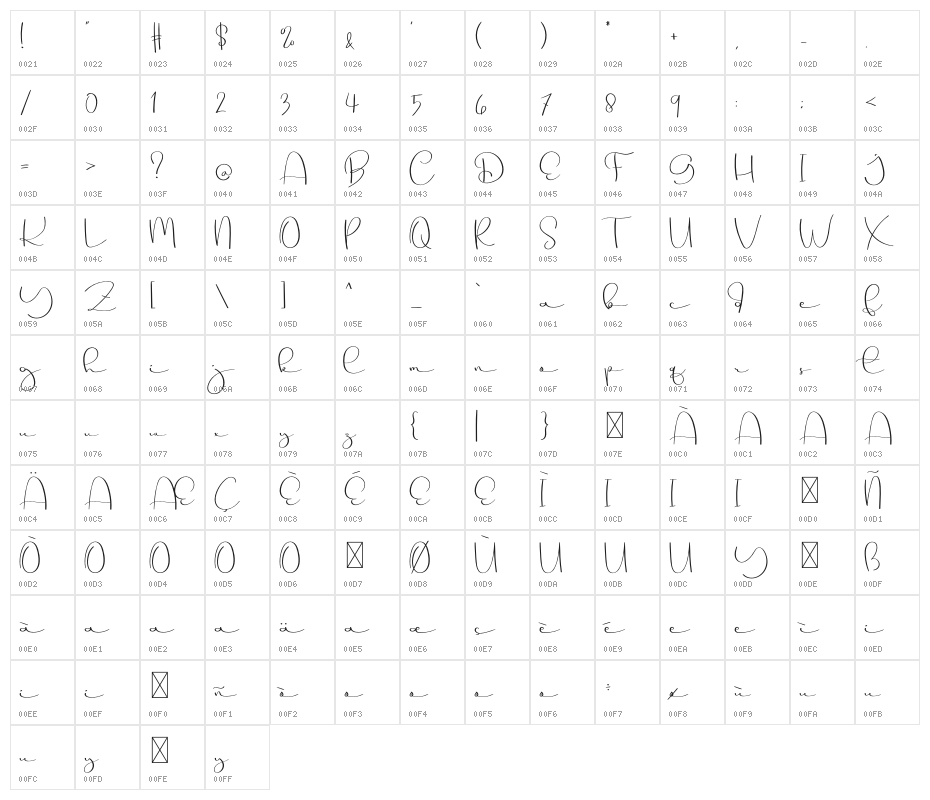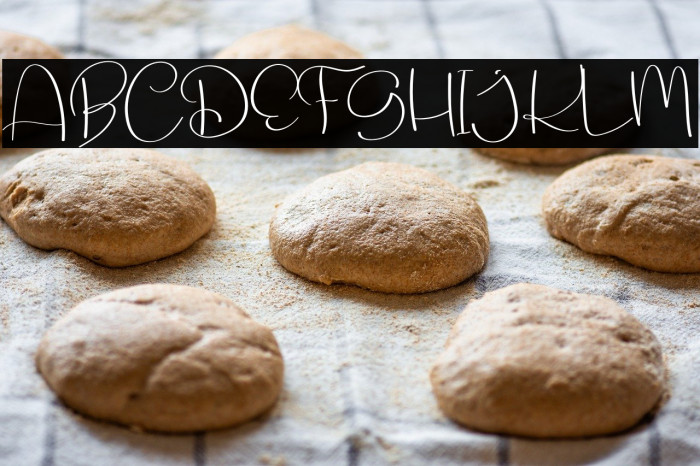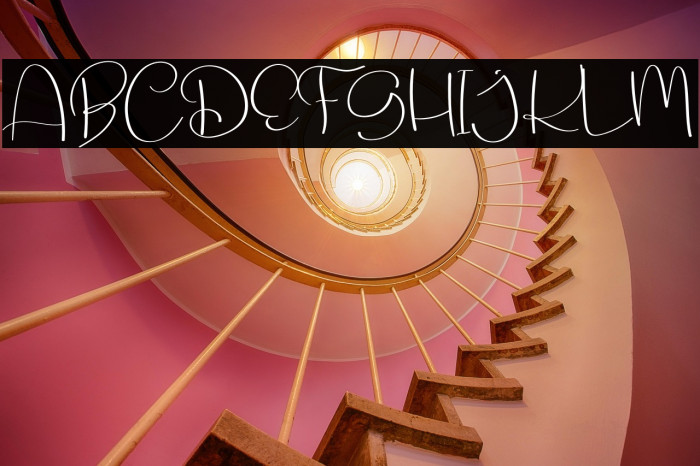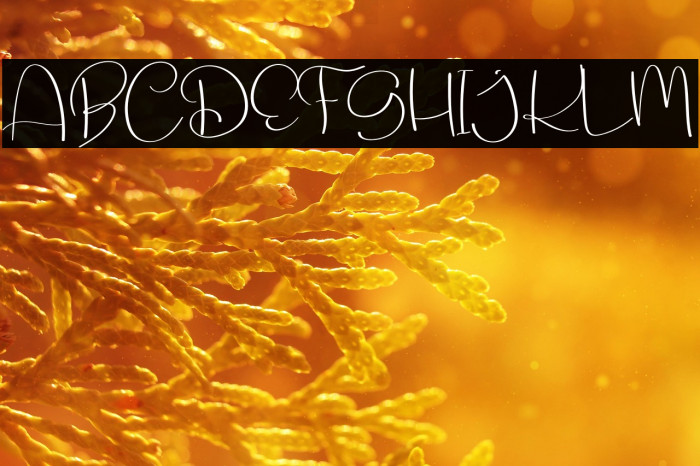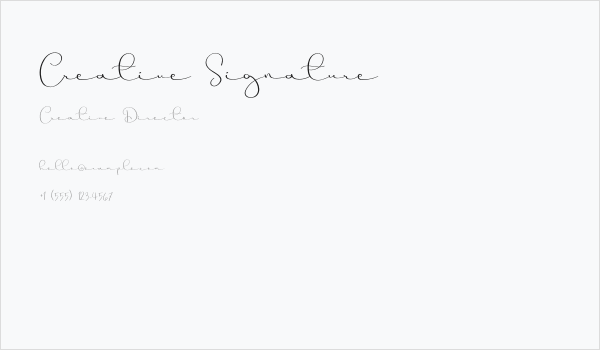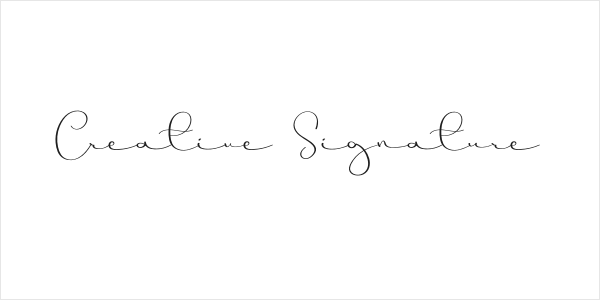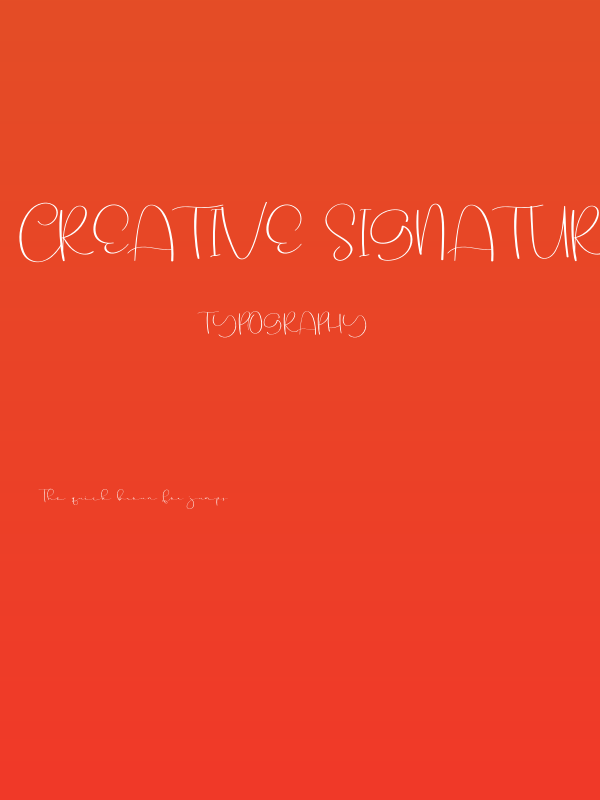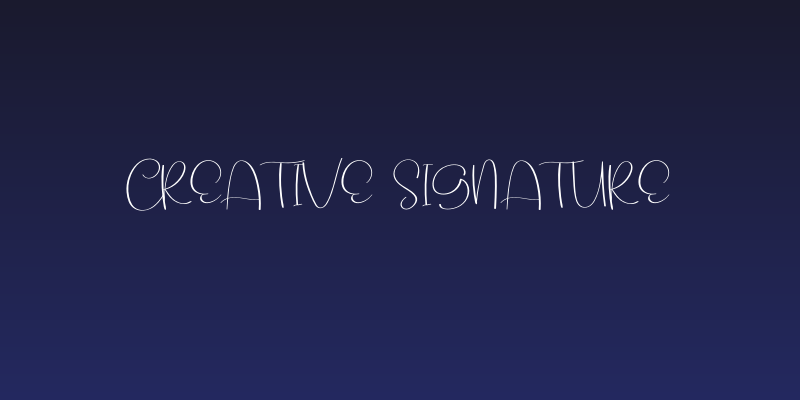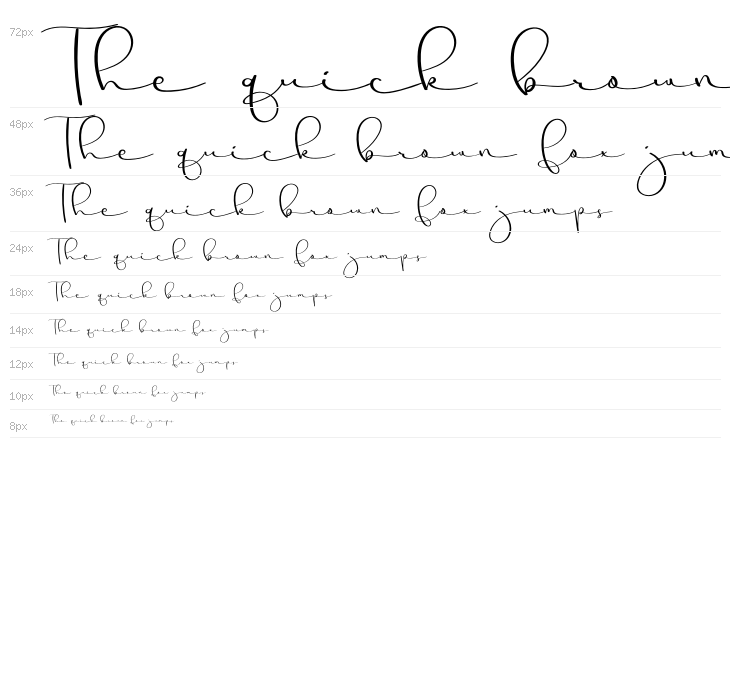
Creative Signature Font
Creative Signature Description
This font exudes a creative and artistic flair, characterized by its flowing and cursive style. The uppercase letters are elegantly elongated with a whimsical touch, while the lowercase letters maintain a consistent fluidity that mimics natural handwriting. The numbers are distinct yet harmonize with the overall script style, offering a playful yet sophisticated appearance. Special characters are crafted with the same artistic intent, ensuring a cohesive look across all elements. This font is perfect for adding a personal and unique touch to any design project.
| Use Case | Logos, Invitations, Personal Branding |
| Proposed Projects | Ideal for wedding invitations, personal branding, artistic logos, and creative social media graphics. |